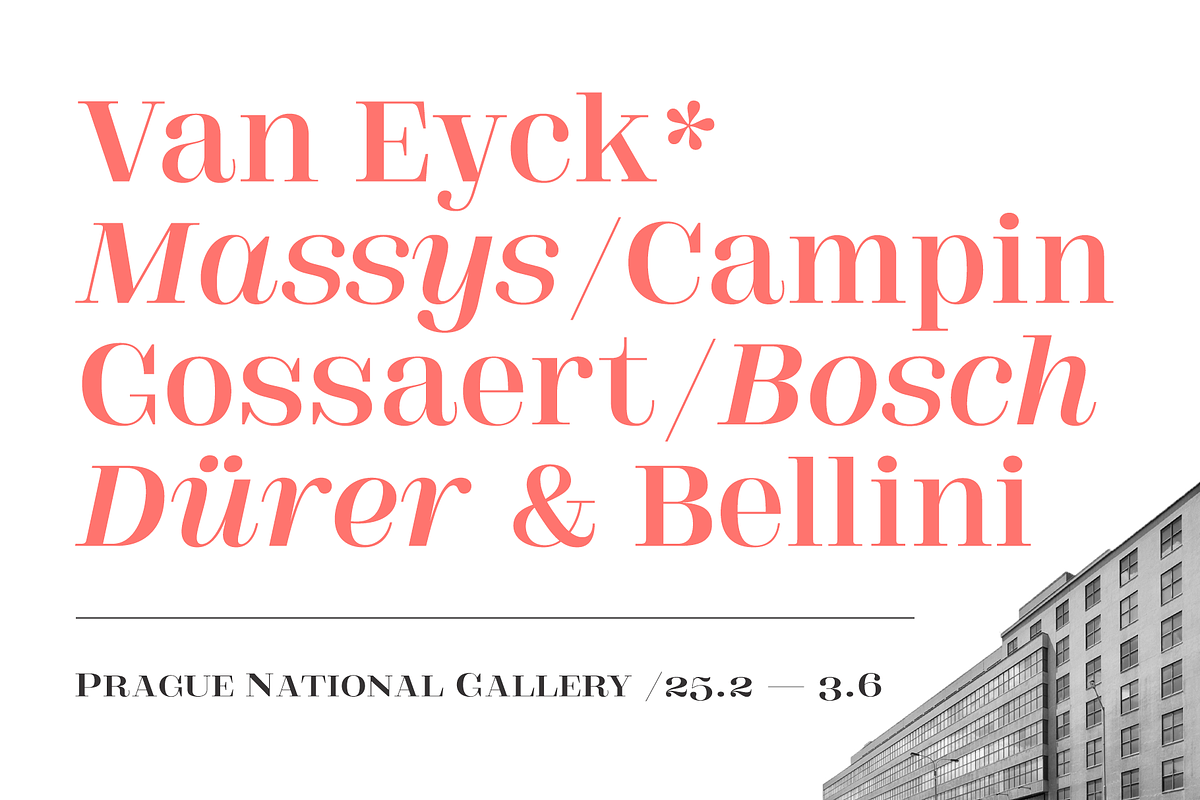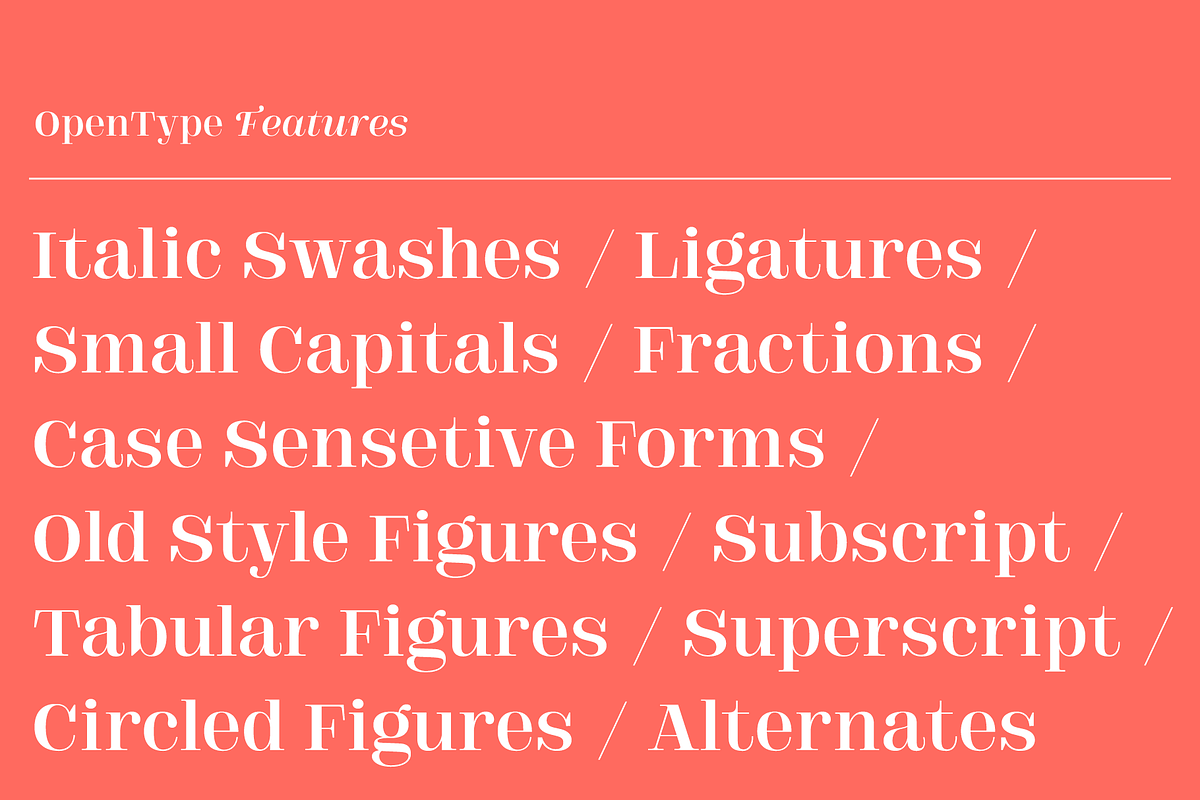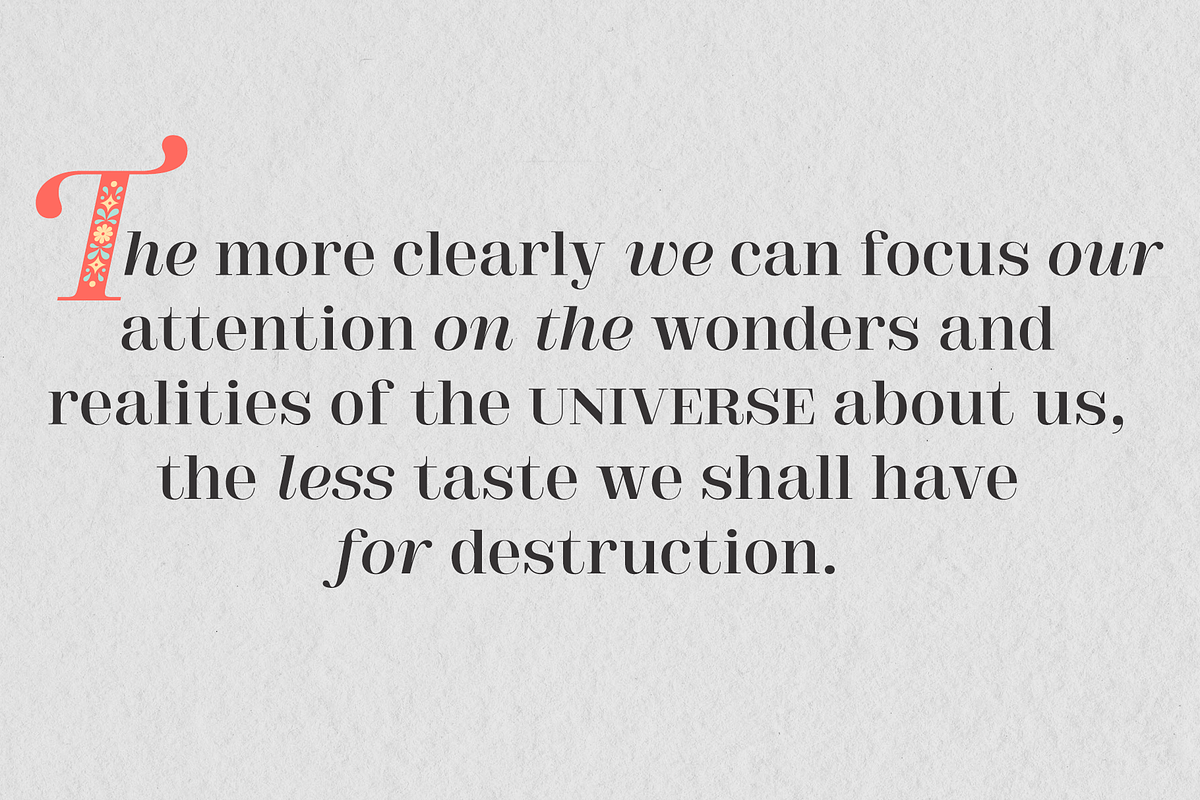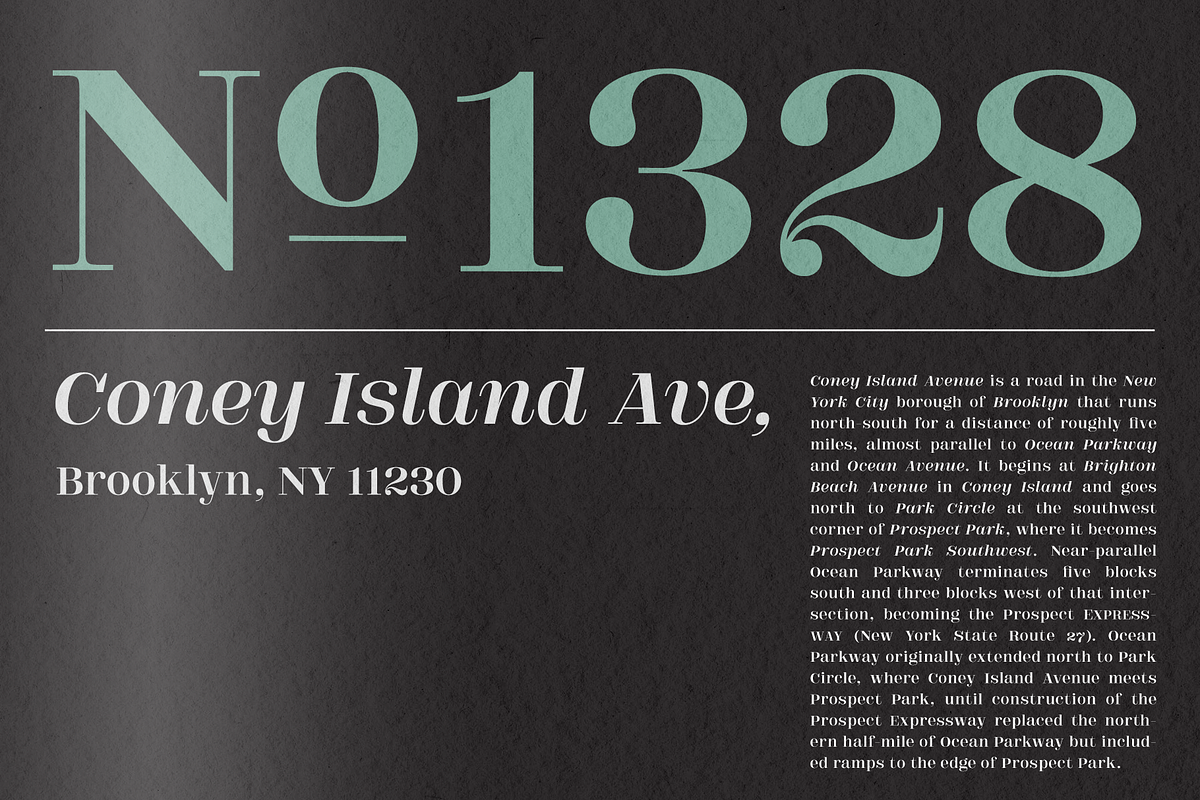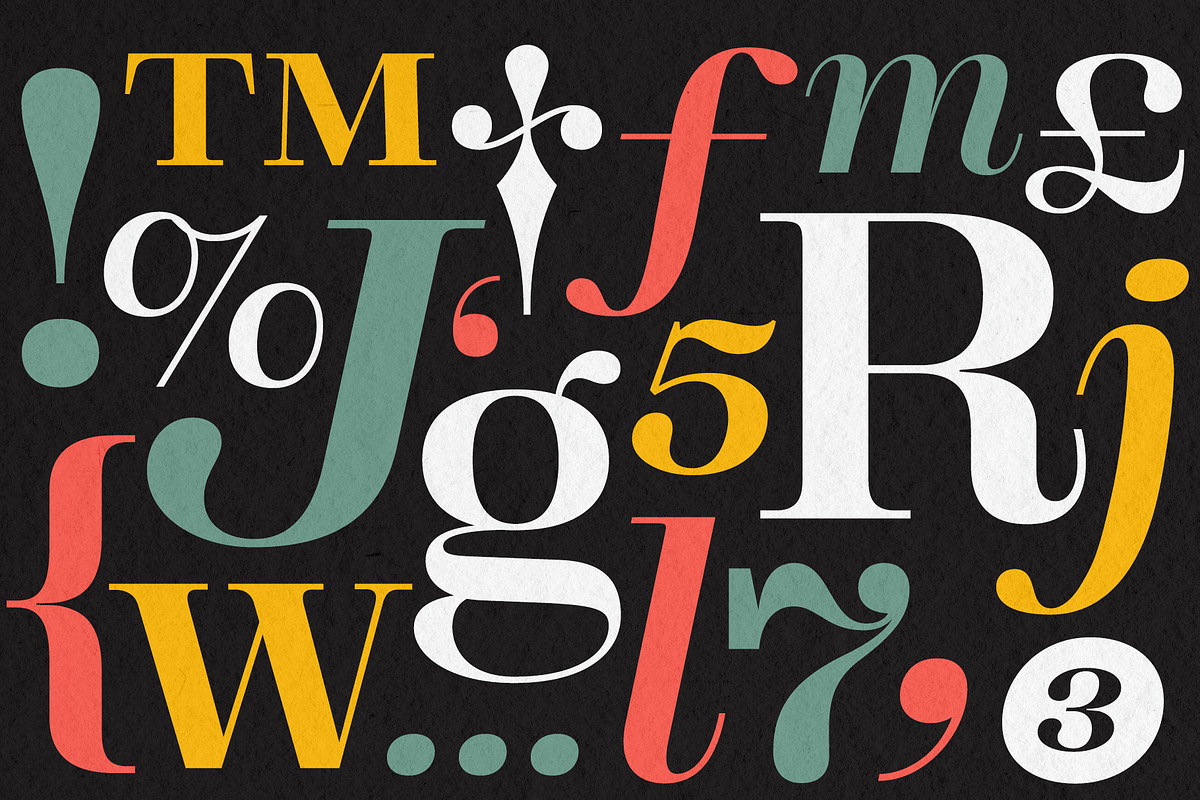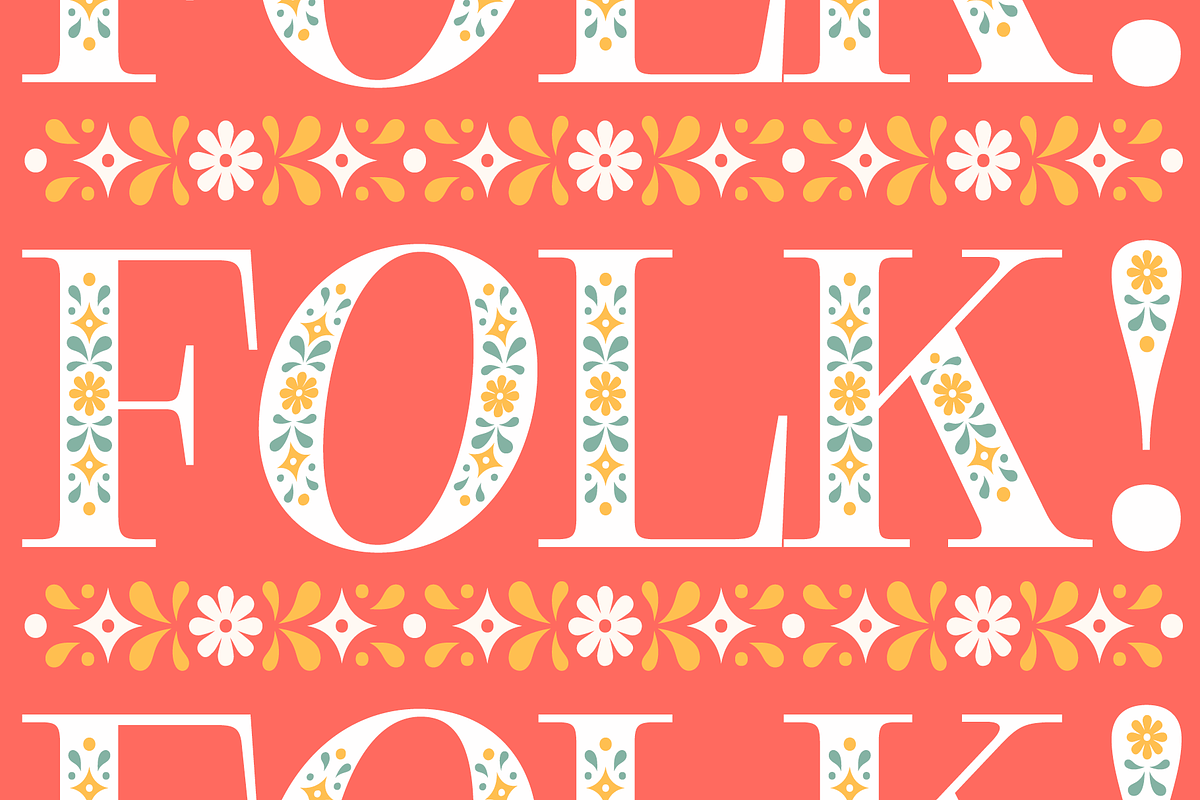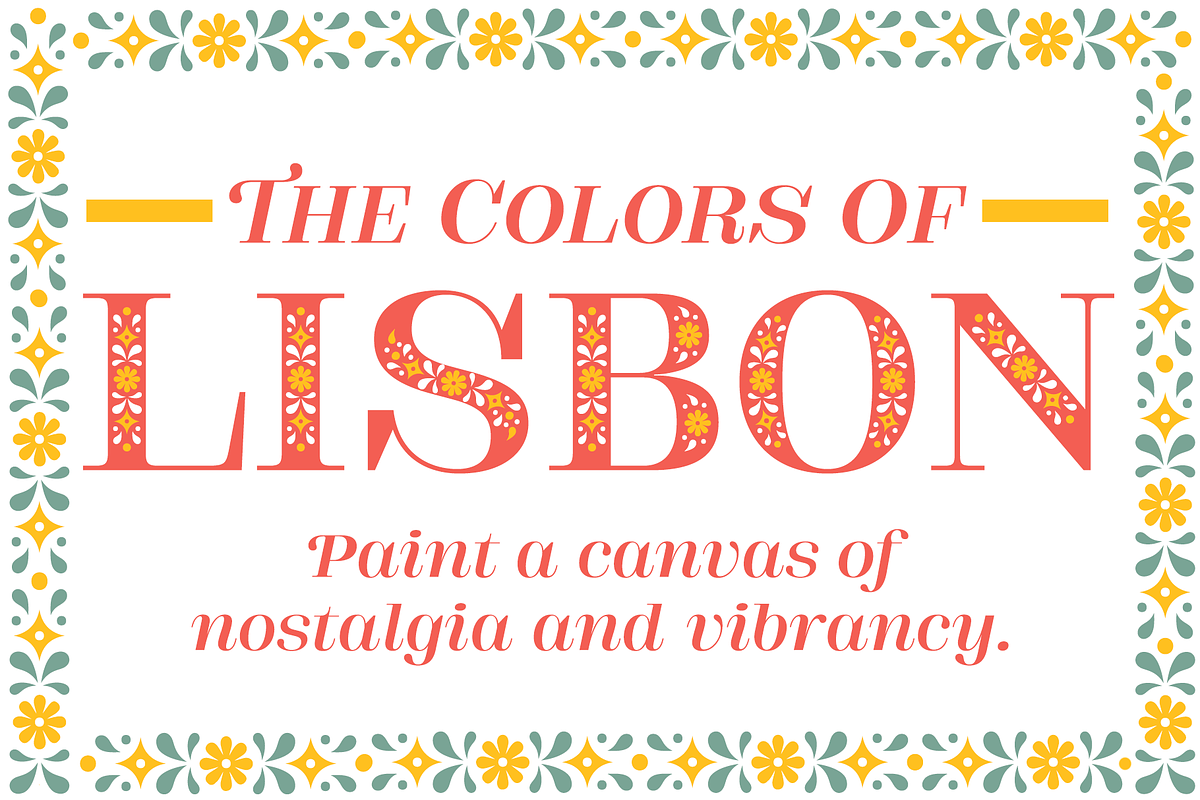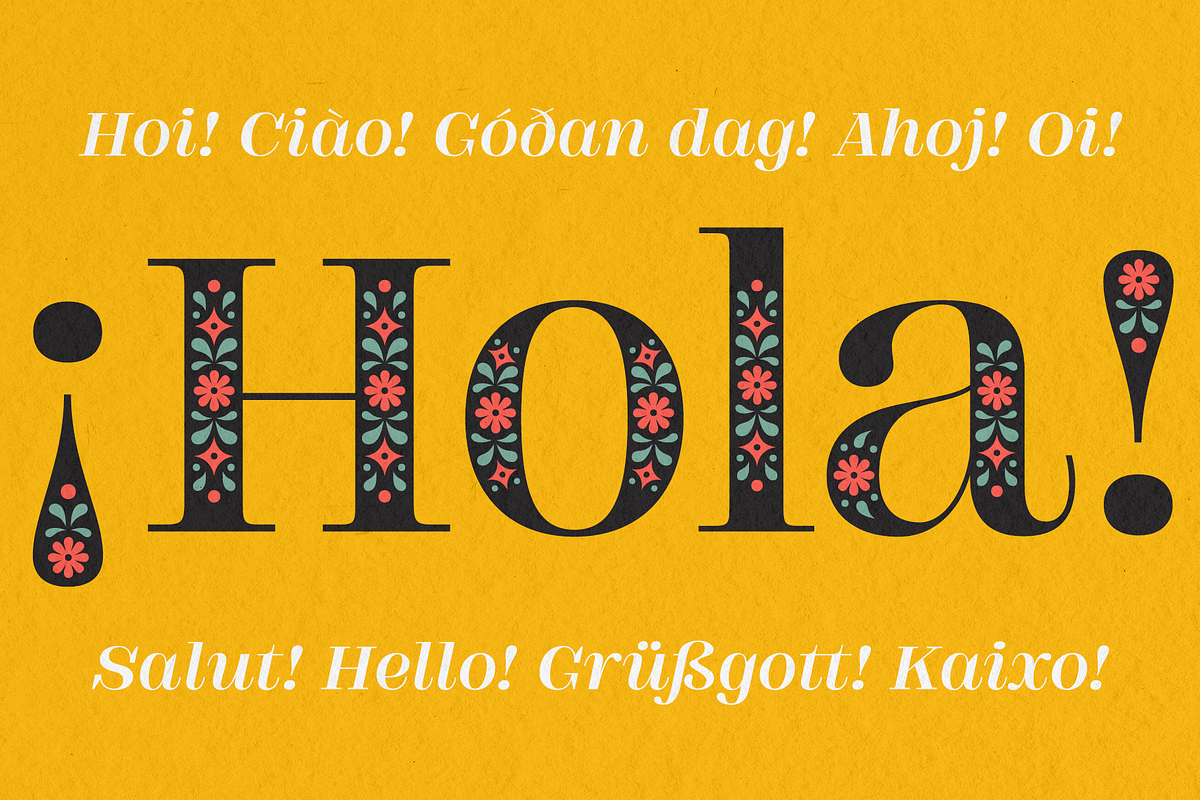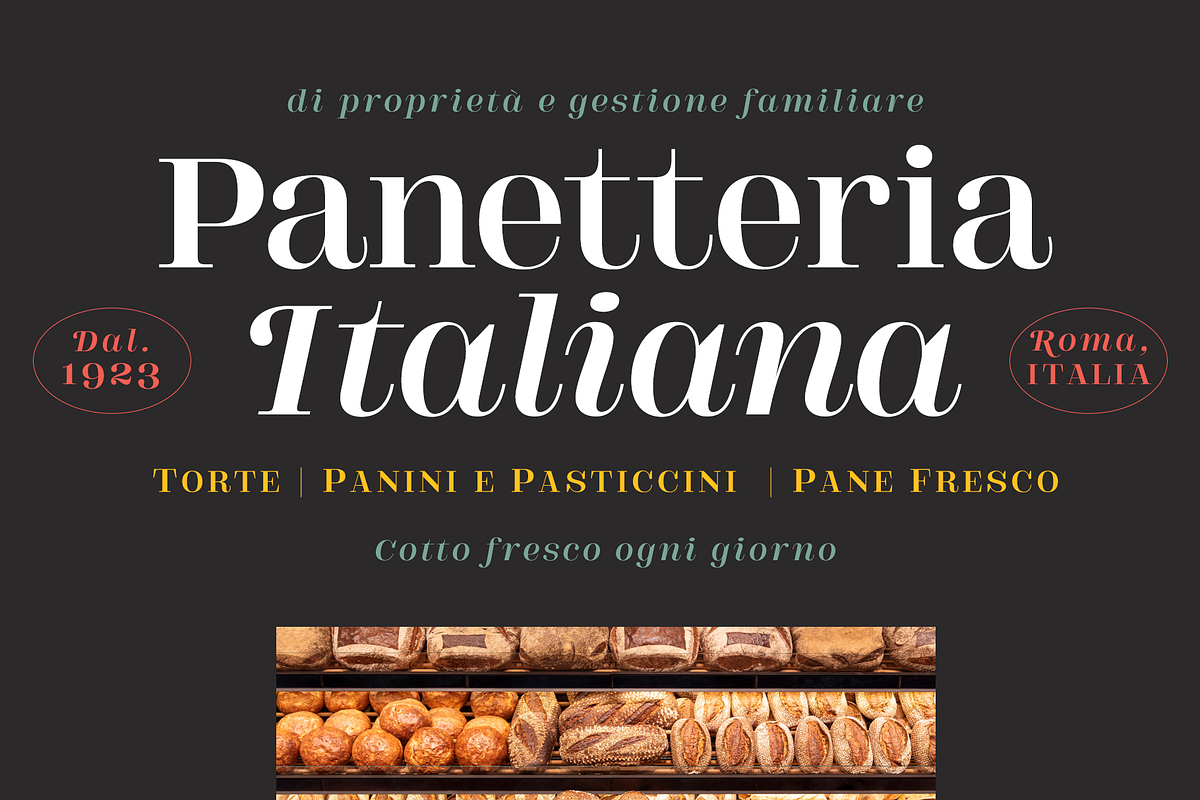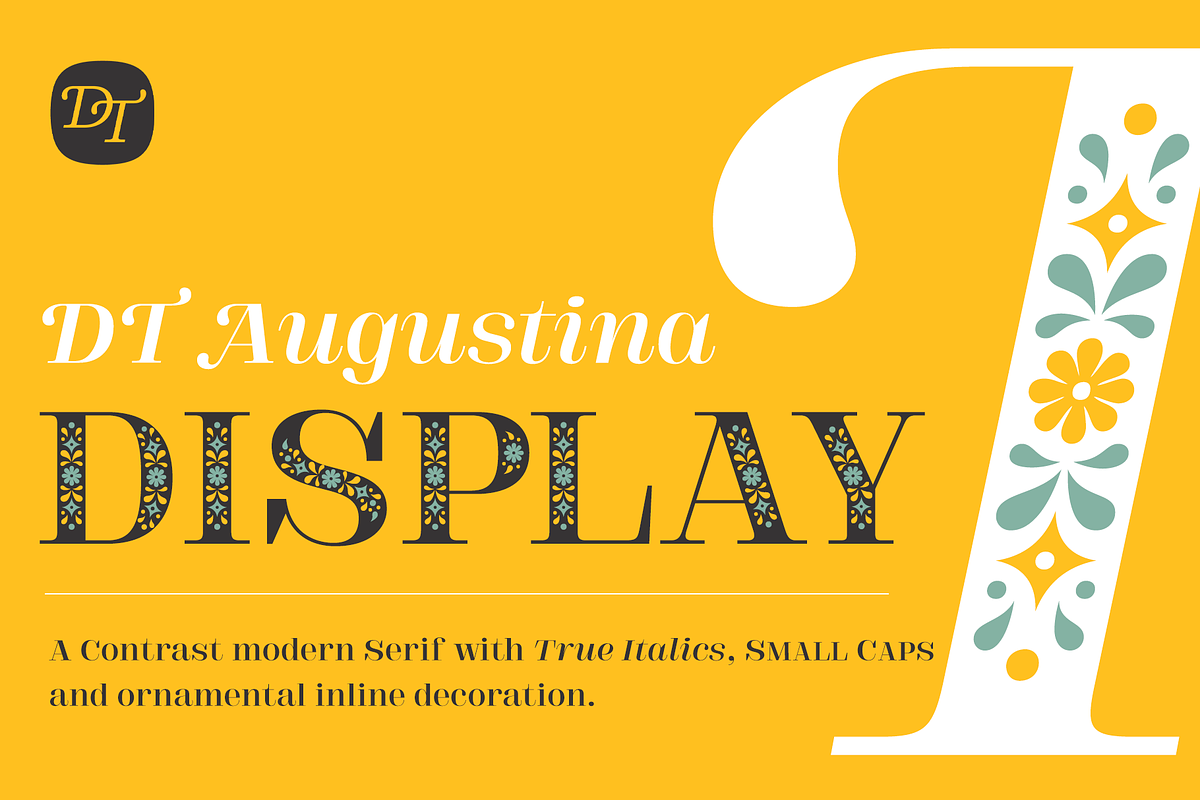
DT Augustina Serif Display
DT Augustina Serif Display is an excellent complement to the DT Augustine Slab family, or you can use it as a standalone display font for your headers, signs, packaging, etc. Its high-contrast strokes add expression to your typography, along with elegance when paired with its italic counterpart. Moreover, you can use Decoration styles to infuse a bohemian mood into your project. These decorative styles are divided into two categories, allowing you to colorize them using two different colors.
DT Augustina Serif Display offers OpenType features such as italic swashes, ligatures, small capitals, fractions, case-sensitive forms, old-style and tabular figures, superscript and subscript, circled figures, and stylistic alternates, making this font suitable for a wide range of projects.